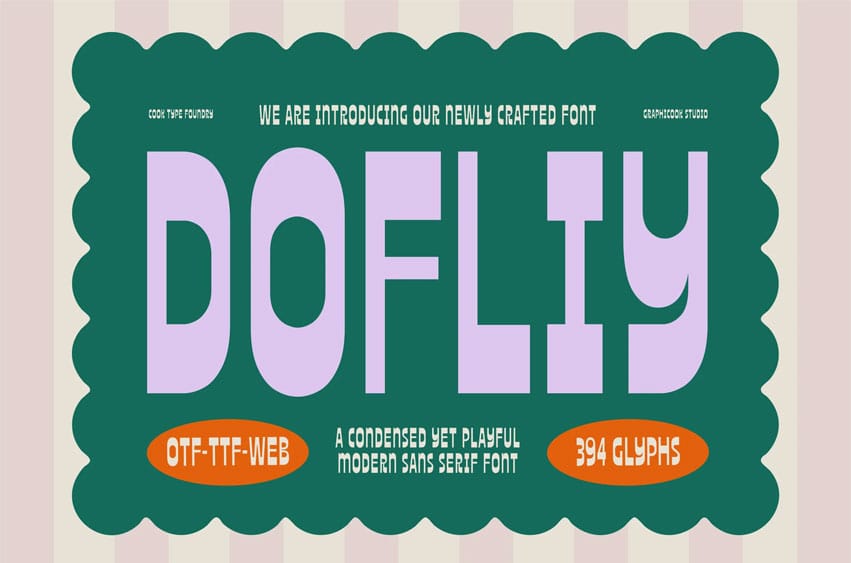
Dofliy Font is a condensed sans-serif font with bold forms and a playful personality. Its tall, clean geometric shapes make it ideal for headlines, posters, branding, and strong modern visuals.
It is perfect for headlines, logotypes, magazines, packaging, quotes, movies, games, cover albums, book covers, and flyers. It’s a perfect solution for creating eye-catching designs that stand out in any context.